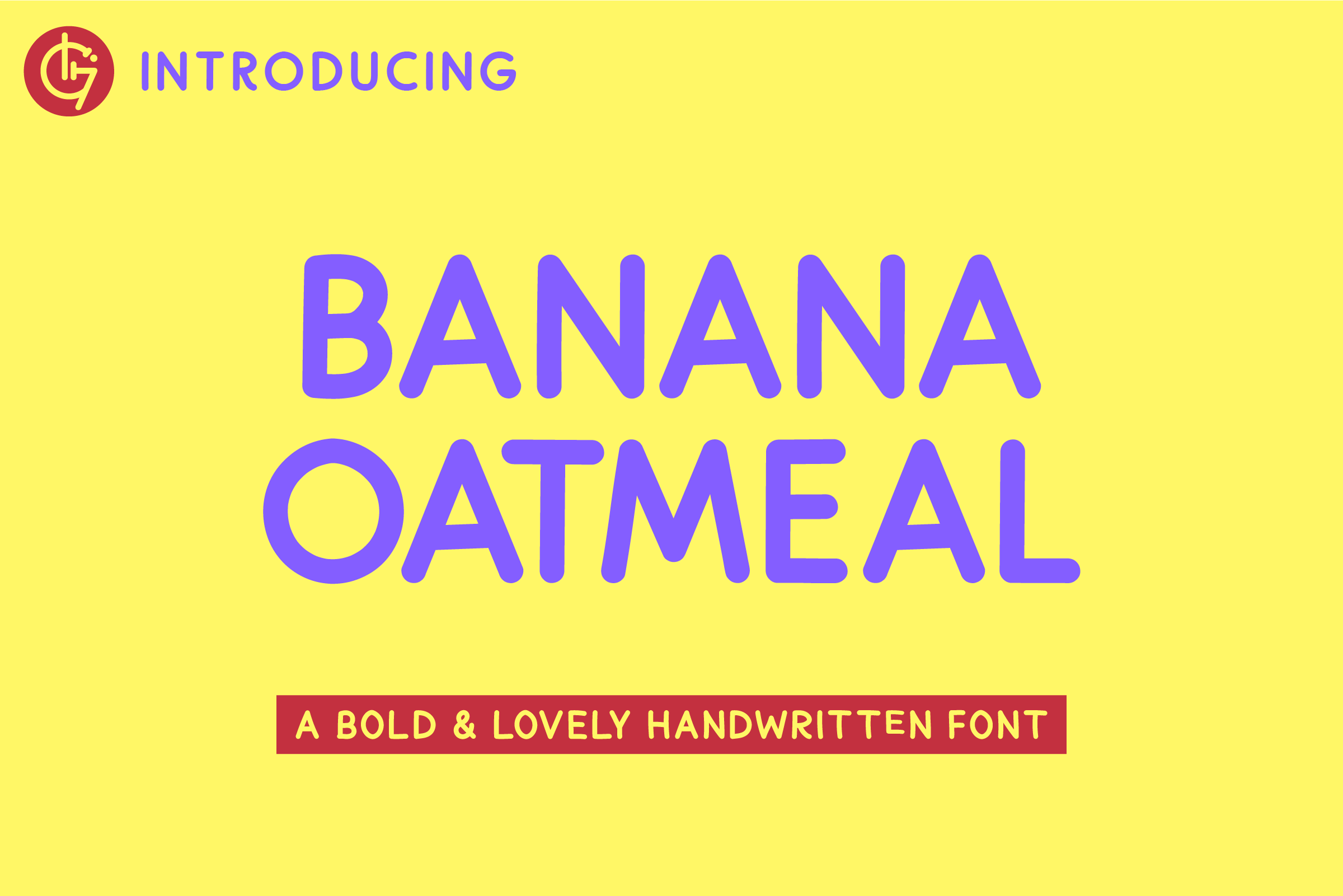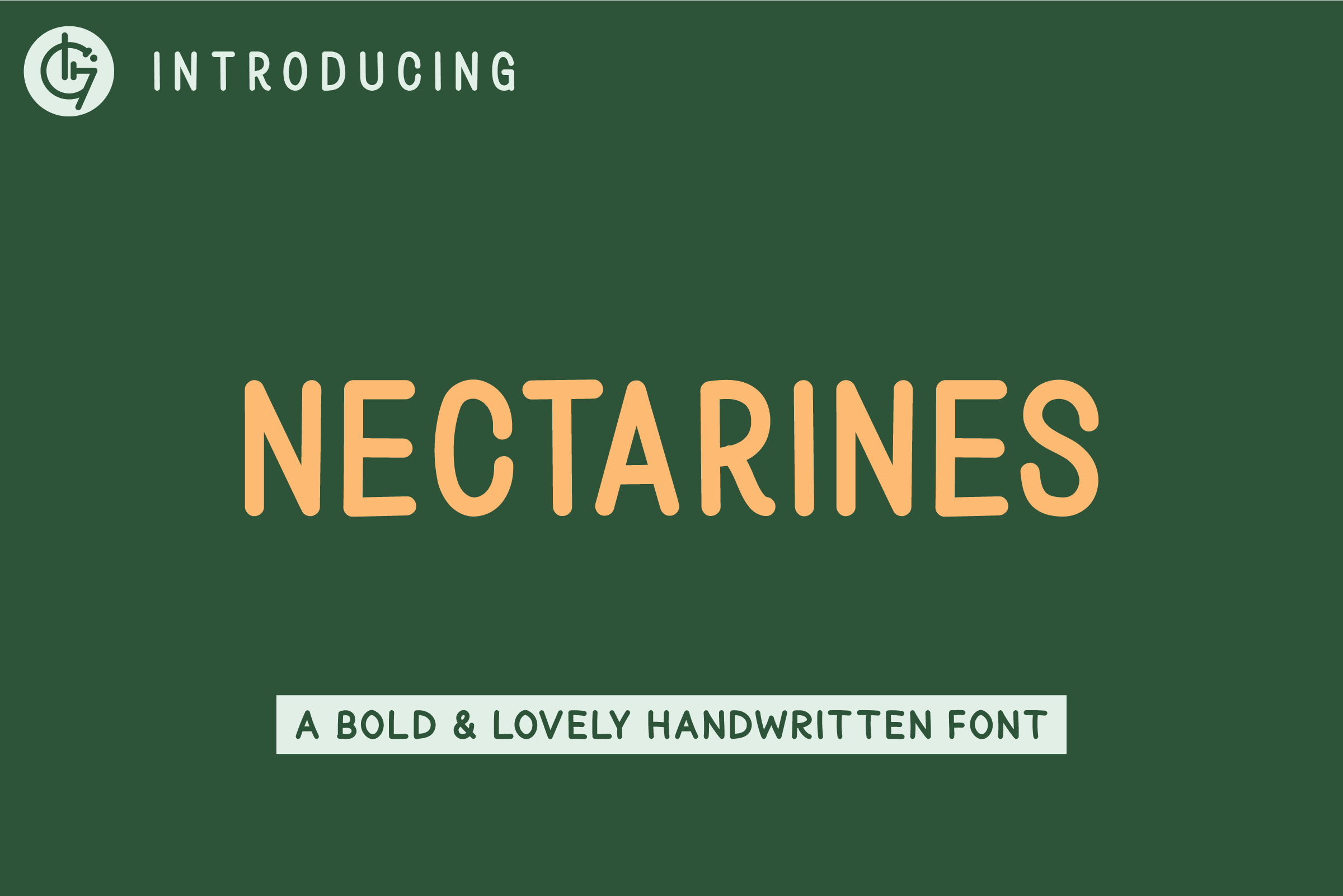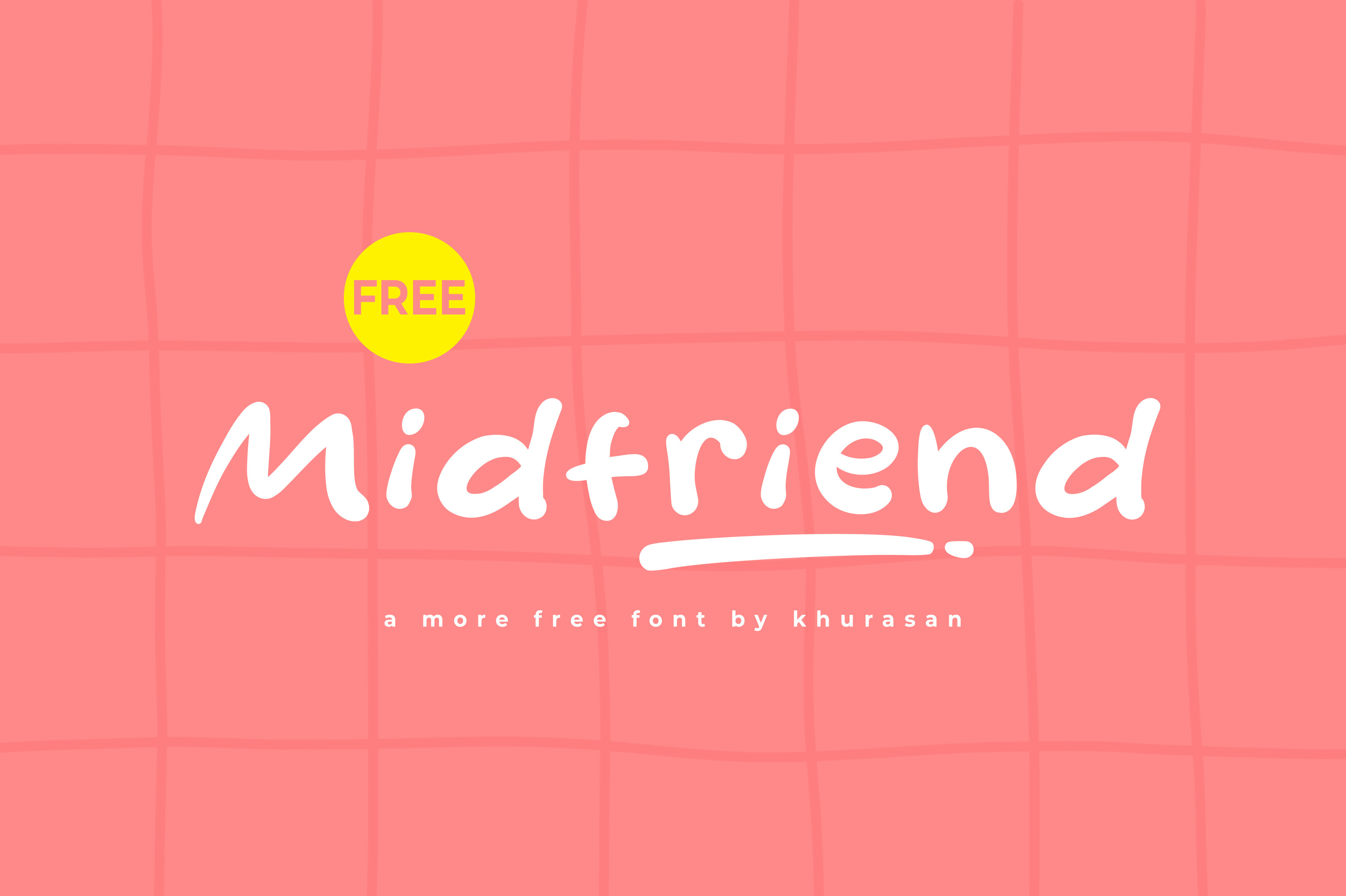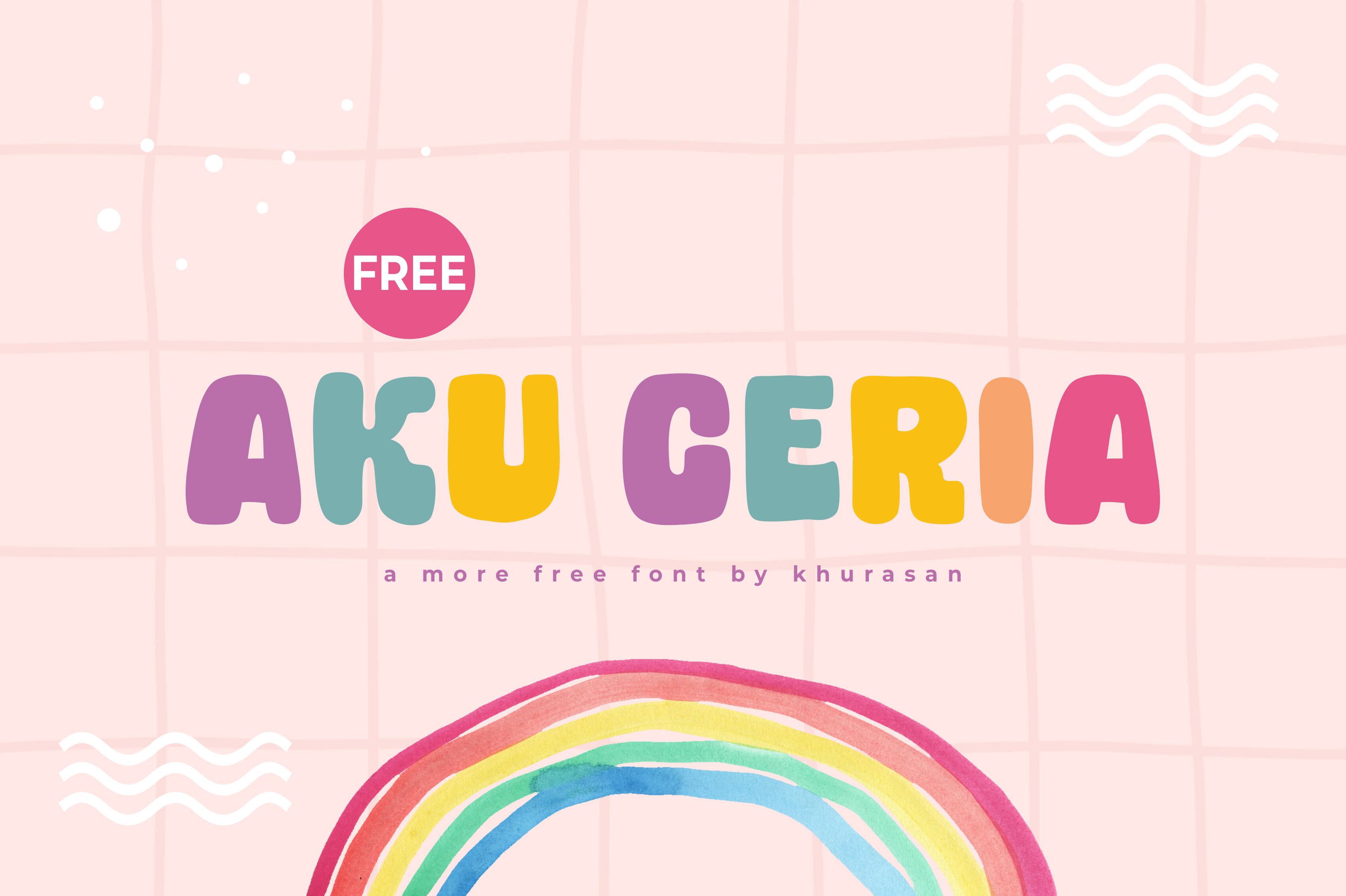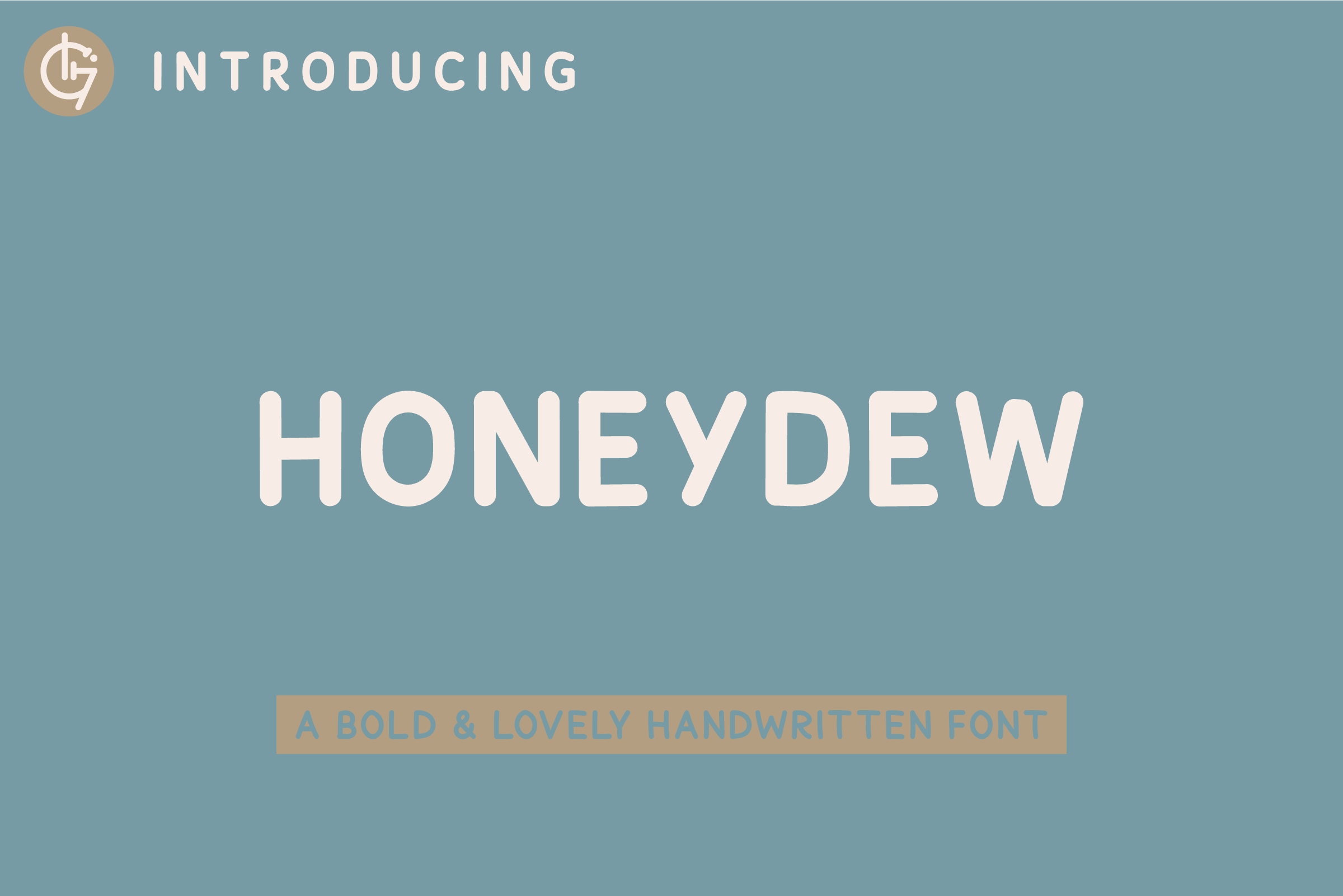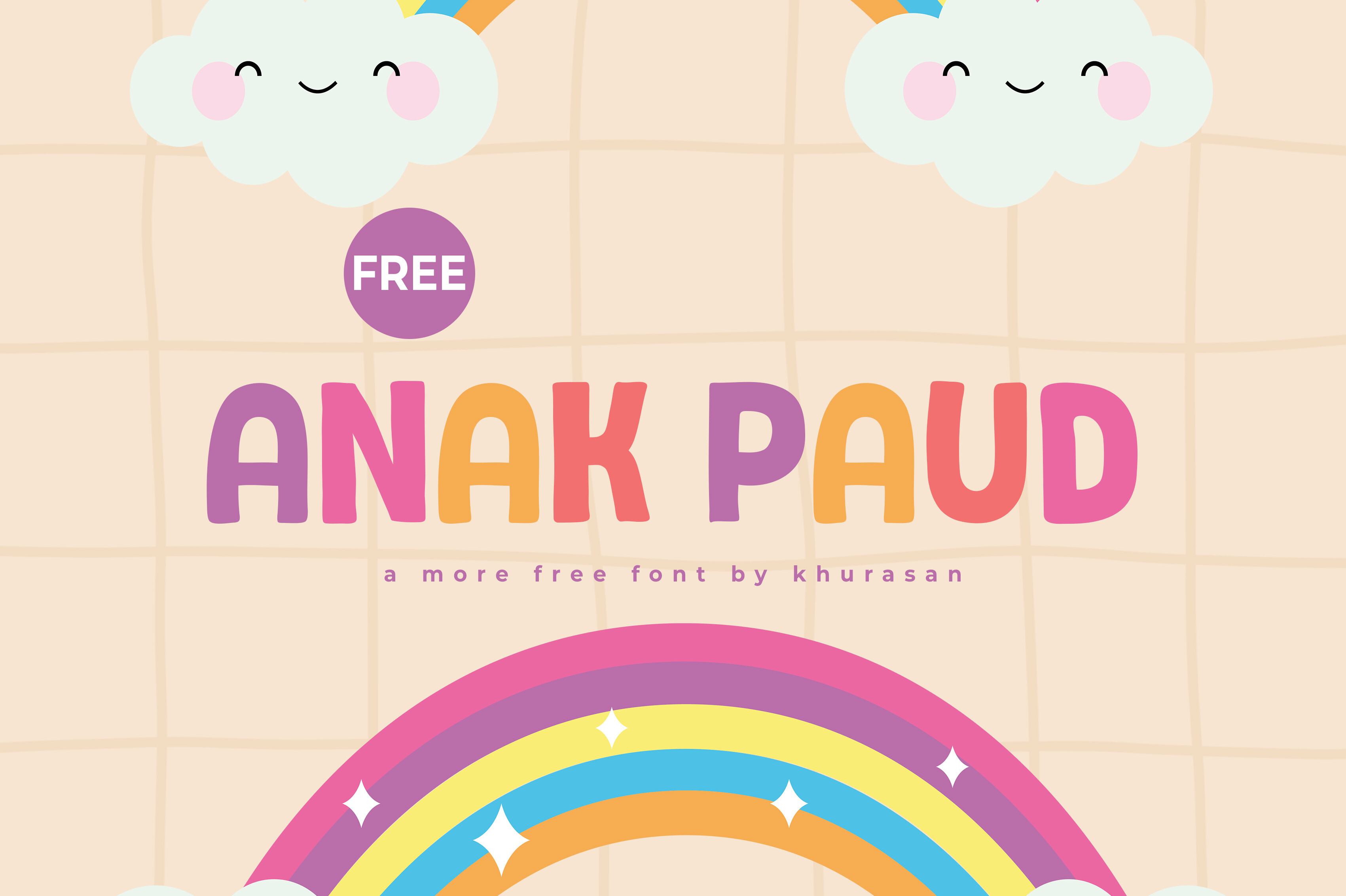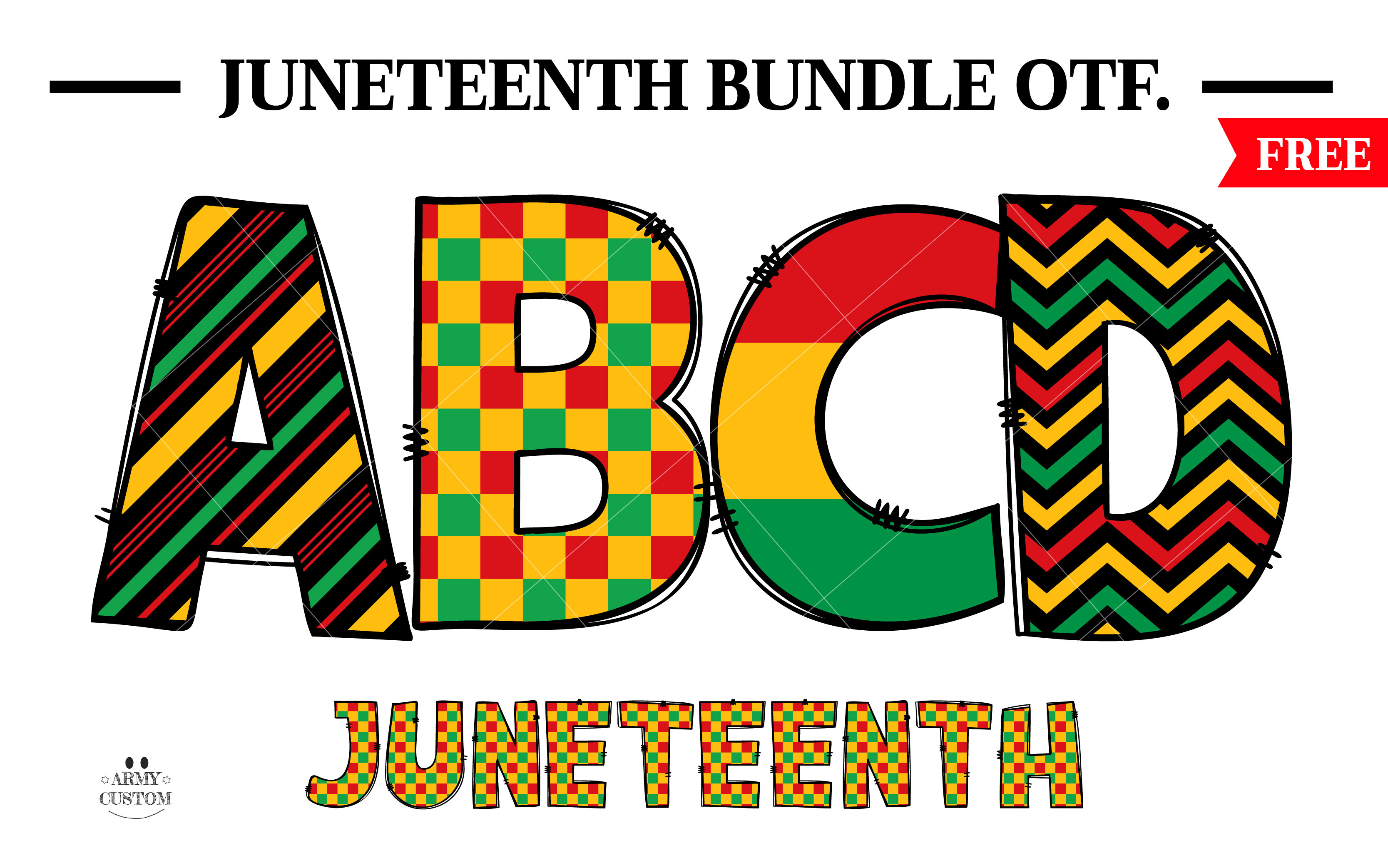
Welcome to this week’s Free Fonts Friday! Dive into our curated selection of unique fonts that are available for free commercial use. This collection features a variety of styles, including the charming handwritten fonts Banana Oatmeal and Nectarines, as well as the playful Midfriend and the warm Homemade. You can also discover whimsical options like Aku Ceria and Carrot Script, alongside the powerful Juneteenth font that pays tribute to history. Lastly, Boxy Tube stands out with its modern geometric design. Each font brings its own unique flair, making them perfect for your creative projects.
Banana Oatmeal
Banana Oatmeal is a delightful handwritten font that strikes a perfect balance between boldness and charm. Its unique aesthetic is ideal for a variety of applications, from branding to packaging, social media visuals, and print materials. The font's warm and inviting style adds authenticity to any design project, making it both professional and approachable. Whether used in a logo or on product labels, Banana Oatmeal is sure to capture attention and leave a lasting impression.
Nectarines
Nectarines is a captivating handwritten font that brings a delightful blend of boldness and warmth to your designs. Perfect for branding, packaging, social media, and print, this font adds a personal touch that enhances the overall aesthetic. Its unique style resonates with authenticity, making it a fantastic choice for projects that require a professional yet friendly vibe. Whether you're designing logos or promotional materials, Nectarines is sure to leave a positive impression on your audience.
Midfriend
Midfriend is a charming modern display font that excels in creating eye-catching designs for posters, logos, magazines, and more. Its unique, playful style adds a delightful touch to any project, making it perfect for a wide range of applications. This font is versatile and adaptable, seamlessly fitting into various creative concepts. Use Midfriend to elevate your design work and capture the attention of your audience with its engaging and friendly appearance.
Homemade
Homemade is a warm and inviting handwritten font that brings a personal touch to your designs. Its bold presence is well-suited for branding, packaging, social media, and print applications. The font's unique style adds authenticity and character, making it a wonderful choice for projects that require a blend of professionalism and friendliness. With Homemade, you can elevate your design work and create a memorable impression on your audience.
Aku Ceria
Aku Ceria is a delightful modern display font that adds a touch of whimsy to your designs. Perfect for posters, logos, magazines, and banners, this font is versatile and adaptable to various projects. Its charming style enhances creativity and encourages playful design ideas. With Aku Ceria, you can effectively capture your audience's attention and bring a joyful feel to your creative work, making it an excellent choice for any project that needs a bit of flair.
Honeydew
Honeydew is a charming handwritten font that merges a bold presence with a personal, inviting style. Perfect for branding, packaging, and social media, this font adds warmth and authenticity to your designs. Its unique aesthetic appeals to various projects, making it an excellent choice for materials that require a professional yet friendly vibe. Use Honeydew to create memorable designs that resonate with your audience and enhance the overall experience of your creative work.
Carrot Script
Carrot Script is a fun and playful handwritten font perfect for a variety of creative projects. Its friendly style is ideal for crafts, planners, stickers, greeting cards, and more. Whether you're using it for Cricut projects or other DIY endeavors, this font adds a whimsical touch that brings your designs to life. With Carrot Script, you can effortlessly create engaging visuals that resonate with your audience and enhance the charm of your creative work.
Anak Paud
Anak Paud is a delightful modern display font that adds whimsy and charm to any design. Its playful style is perfect for posters, logos, magazines, and banners, making it a versatile choice for a host of creative applications. This font encourages imaginative designs and provides the opportunity to create engaging visuals that captivate audiences. Whether you're working on branding or promotional materials, Anak Paud effortlessly enhances your projects with its cheerful presence.
Juneteenth
Juneteenth is a powerful font inspired by the rich history of African American culture, embodying the spirit of resilience and freedom. This distinctive typeface is perfect for visual storytelling, capturing the essence of the celebration of liberation. With bold strokes and expressive nuances, it provides a strong foundation for creative projects aimed at honoring this significant historical event. The black version is compatible with Cricut Design Space, while the color version suits various design software, offering versatility for diverse design needs.
Boxy Tube